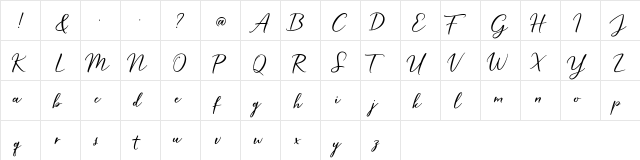
Hardwired Script Free Regular
| Foundry | Juni Fadil Putra |
| Designer | Juni Fadil Putra |
Design Context for Hardwired Script Free Typeface
Hardwired Script Free flows with the natural rhythm of handwritten lettering, making it ideal for designs that call for warmth and personal expression.
Font Pairing: Combine Hardwired Script Free with a simple geometric sans for maximum contrast — the tension between flowing curves and clean structure is a classic typographic pairing.
Pro Tip: Pair Hardwired Script Free with a clean sans-serif for supporting text. The contrast between fluid script and geometric structure creates an elegant typographic hierarchy.